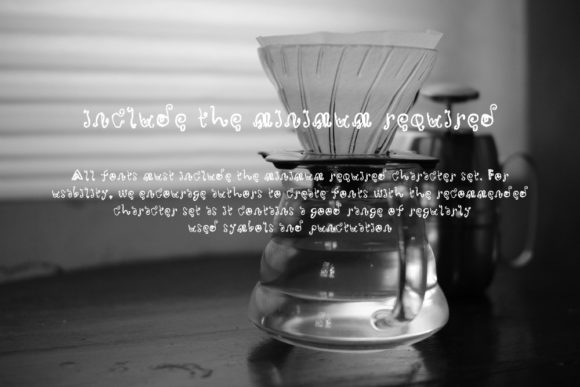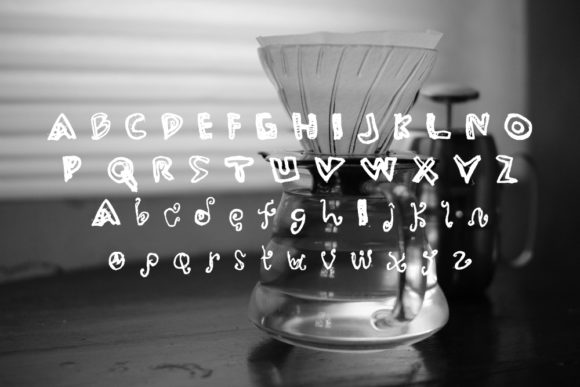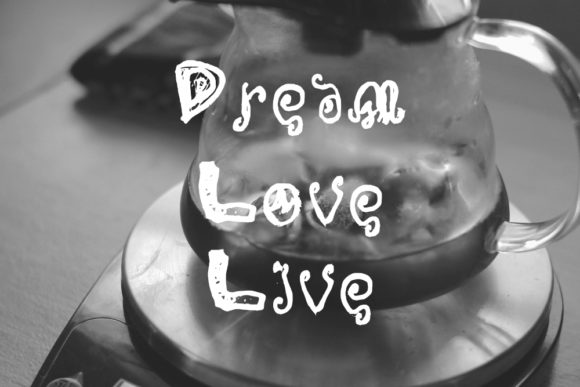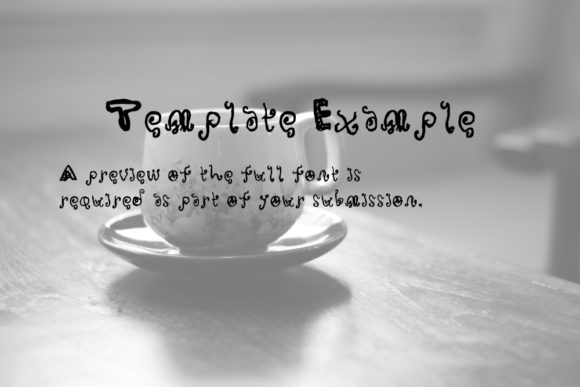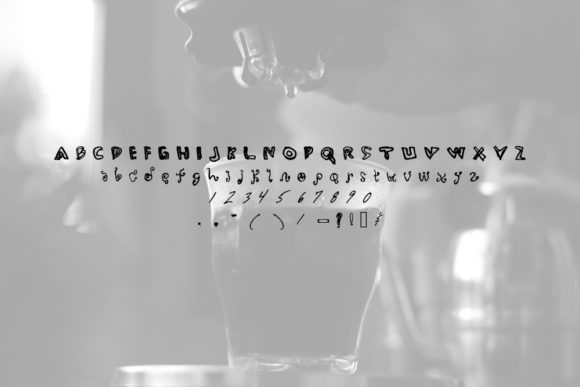
Have you ever stared at a blank page, feeling like your latest design project is stuck in neutral? You’ve got a great idea, but the words just aren’t flowing. That’s when you know it’s time to shake things up with a fresh new font. And that’s exactly what the Baby Freak Font is all about.
This simple and casual display font is the perfect fit for logos, branding, social media, and crafty DIY projects. Its clean and quirky style will add a touch of personality to your work, making it stand out from the crowd. Whether you’re a seasoned designer or just starting out, the Baby Freak Font is a valuable addition to your toolkit.
So why should you give the Baby Freak Font a try? For starters, it’s incredibly versatile and easy to use, making it a great choice for designers of all levels.
Baby Freak Font Key Features
- Unique Characteristics: Baby Freak Font features a distressed, hand-drawn look with bold lines and playful imperfections, giving it a unique and eye-catching appearance.
- Font Style: The font is a sans-serif style with a mix of bold and regular weights, making it suitable for a wide range of design applications.
Baby Freak Font Review
I was excited to dive into the Baby Freak Font, but my experience was a mix of delight and frustration. Here’s the breakdown:
- The font’s playful, whimsical feel is perfect for a children’s brand or a fun, lighthearted design project.
- The bold, rounded letters add a sense of friendliness and approachability, making it great for headings and titles.
- The font is highly customizable, with a wide range of weights and styles to choose from.
- The font can feel a bit too childish for more serious or professional designs, which may limit its versatility.
- The bold letters can be overwhelming in large quantities, making it difficult to use for body text.
- The font may not be the best choice for projects that require a more sophisticated or elegant look.
Overall, the Baby Freak Font is a fun and playful addition to any design project. While it may have some limitations, it’s perfect for the right kind of design – and its customizability makes it a great choice for designers who want to add a bit of personality to their work.
For the best results, use the Baby Freak Font in conjunction with bold or italic text to create visual interest.
1. Creating playful and whimsical designs for children’s products or nursery decor.
2. Adding a touch of personality to social media graphics or blog posts.
3. Designing invitations or party decorations for kids’ birthday parties.